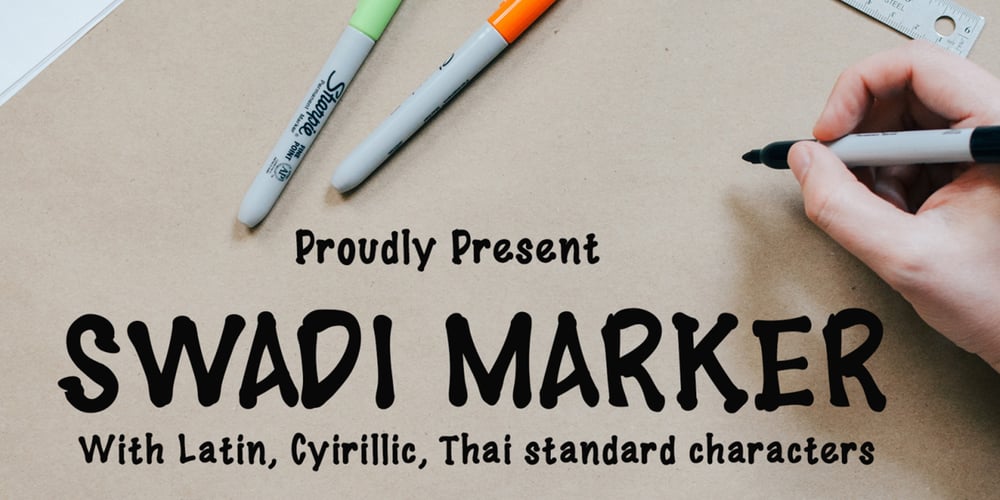
Swadi Marker
Swadi Marker font
Swadi Marker Font Family was designed by Sipanji and published by Sipanji21. Swadi Marker contains 1 styles and family package options. Swadi Marker is a sweet and friendly serif font and features Cyrillic and Thai character. Its natural and unique style makes it incredibly fitting to a large pool of designs. The only limit is your imagination!